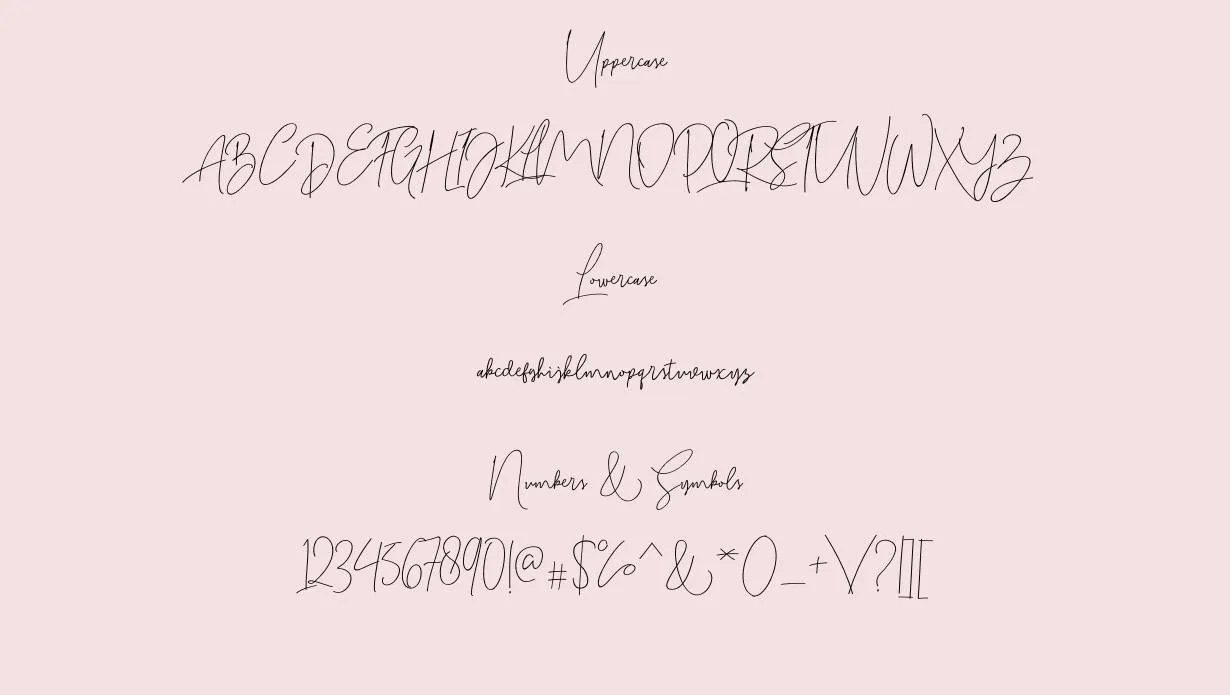
Bitlamero Signature Font is recognized for its bold and flowing design, making it a decorative and expressive script typeface.
It’s often chosen for creative branding, advertising, and projects where designers want to create a striking visual impact. The font’s expressive and intricate letterforms make it stand out and draw attention. Utilizing the kalam font opens up possibilities for creating extraordinary designs.